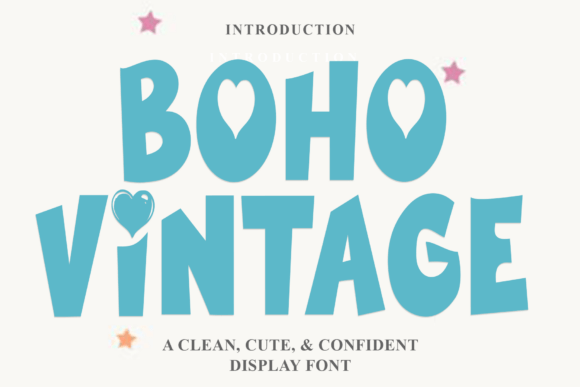
The Boho Vintage Font: A Designer’s New Best Friend
I’ll never forget the time I was working on a project for a client’s wedding invitation. I had the design concept nailed down, but something was missing – the perfect font. I scoured the internet, tried out countless fonts, but none seemed to capture the warm, playful vibe I was going for. That’s when I stumbled upon the Boho Vintage font. It was love at first sight! ✨ The round, playful strokes and charming, hand-drawn aesthetic instantly elevated my design and made it exactly what my client was looking for.
• ✨ The Boho Vintage font exudes warmth and friendliness, making it perfect for personal projects, invitations, and social media graphics.
• ✅ Its casual and creative vibe adds a fun and unique touch to any design.
While the Boho Vintage font is amazing, there are a few things to keep in mind: ⚠️ It may not be the best choice for very formal or professional projects, as its playful nature might not fit the tone. 🤔 Additionally, some users have reported that the font can be a bit tricky to read at very small sizes.
4. Experiment with OpenType features, such as glyphs and stylistic alternates, to add more personality to your text.
The Story Behind Boho Vintage
The Boho Vintage font was designed with the intention of capturing the carefree, bohemian spirit of the 1960s and 1970s. The designer, inspired by vintage posters and hand-painted signs, aimed to create a font that would evoke a sense of warmth and friendliness. And, with its charming, hand-drawn aesthetic, Boho Vintage is sure to transport your designs back to a bygone era.
Q: What is the Boho Vintage font best used for? A: The Boho Vintage font is perfect for personal projects, invitations, social media graphics, and any design that requires a playful, yet elegant touch.